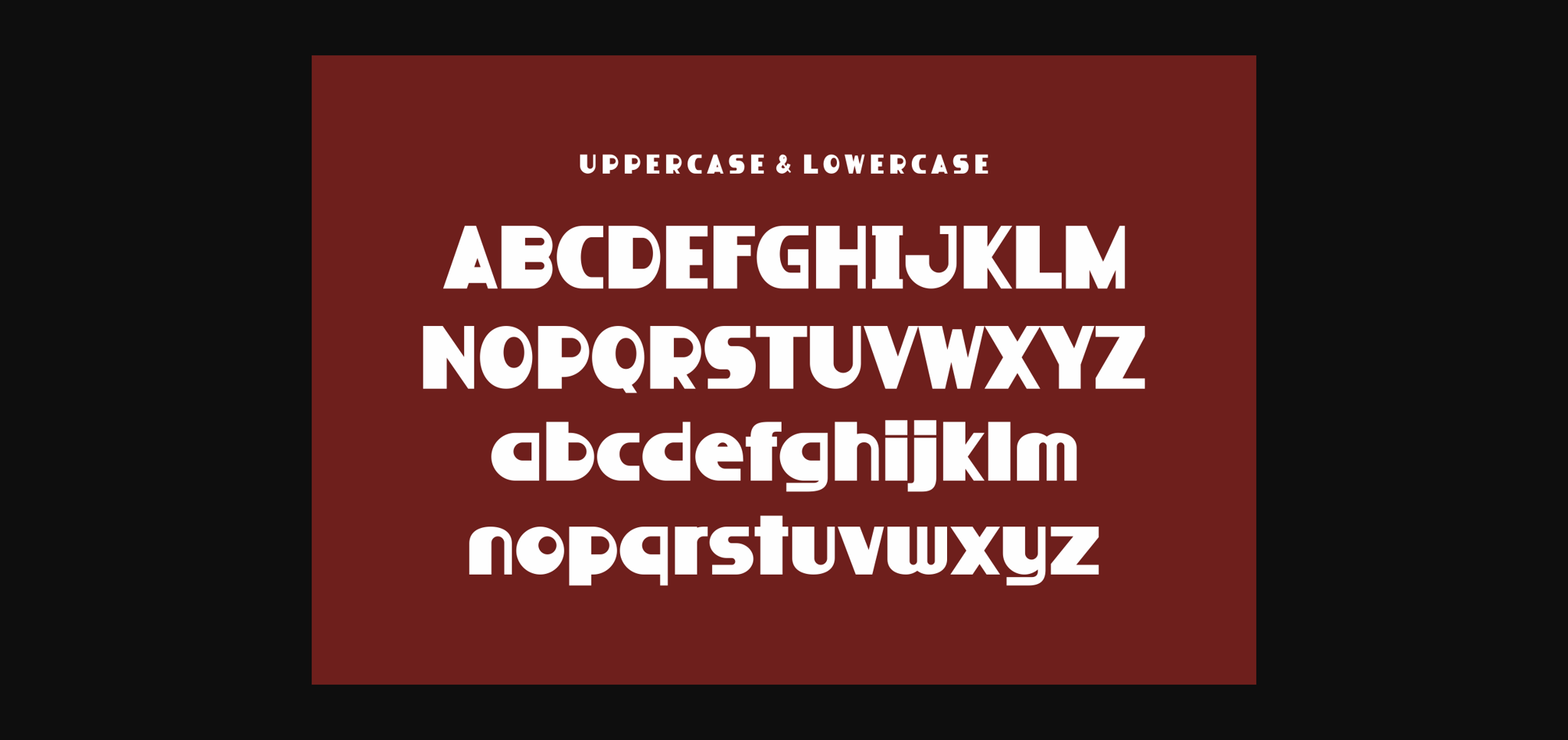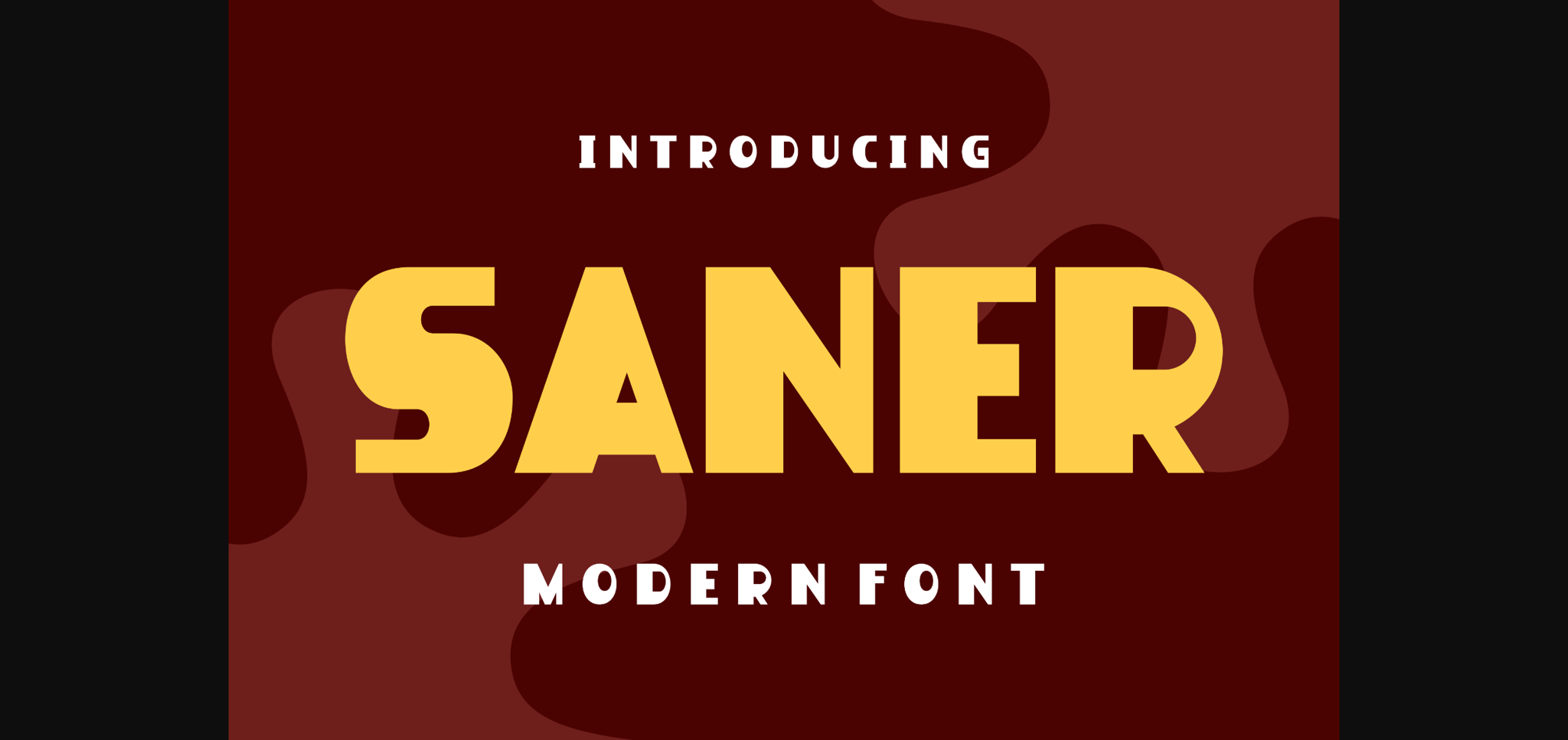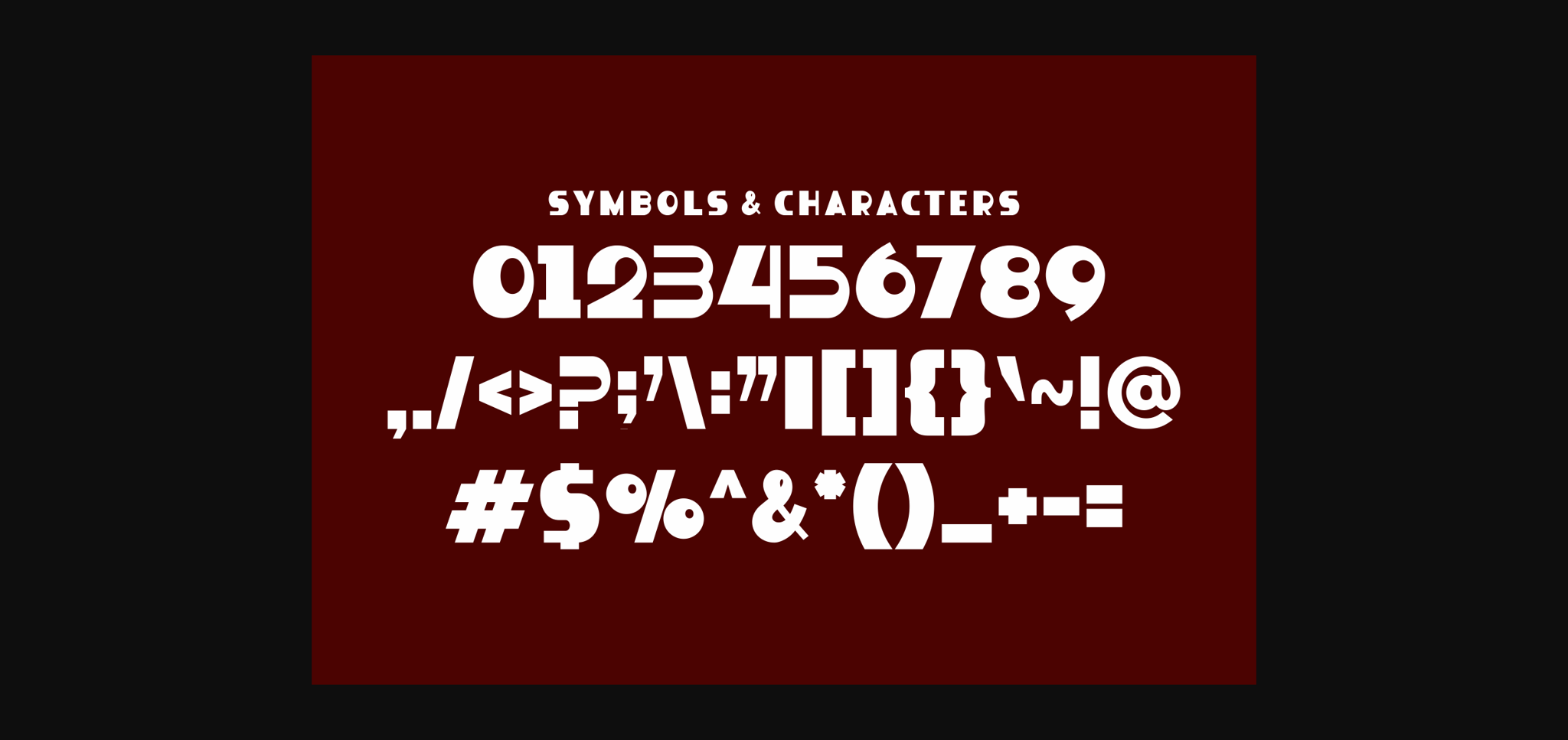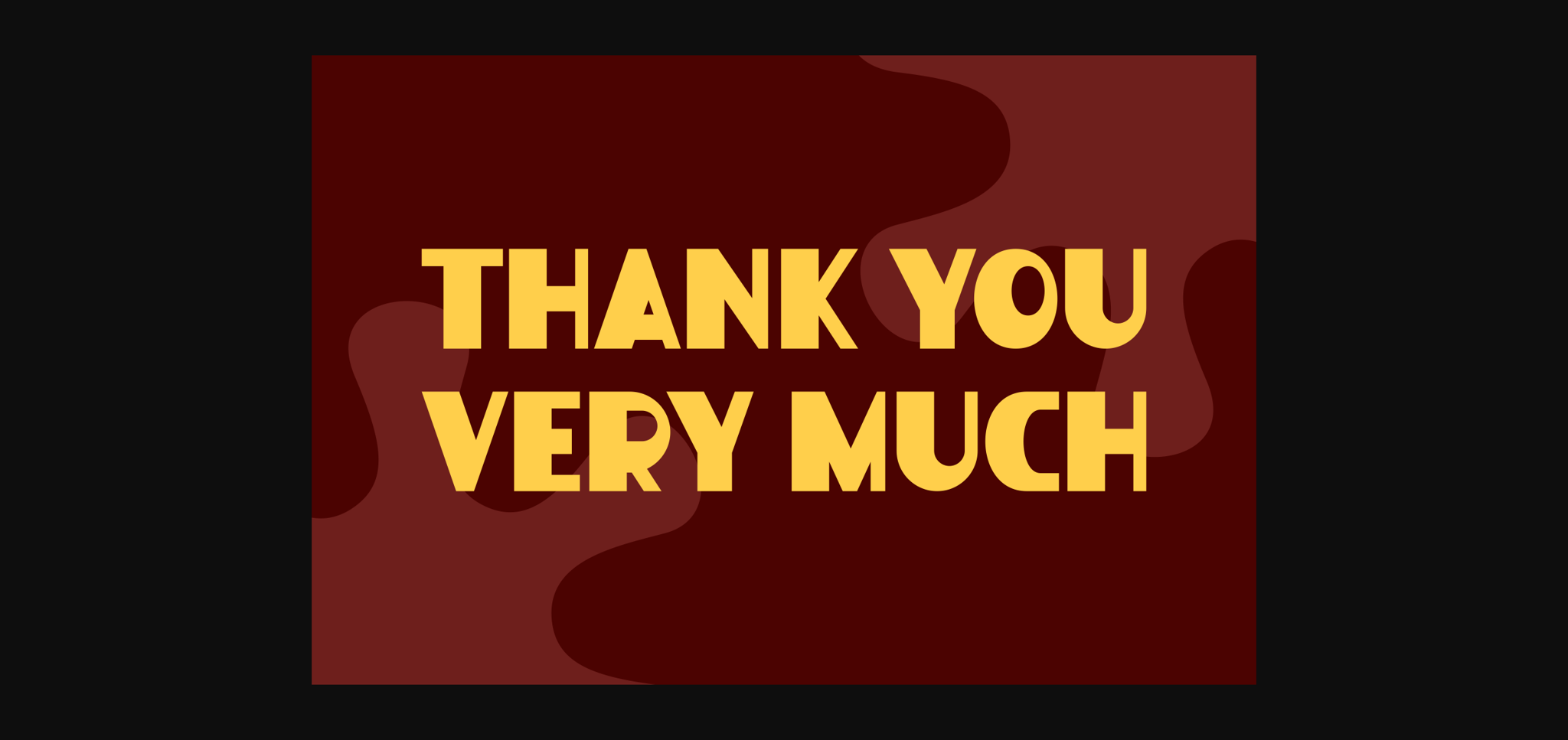
HomeSans Serif FontsSaner Font Sans Serif Fonts Saner Font FacebookTwitterPinterestWhatsApp 1 of 6 ... Saner Font Poster 2... Saner Font Poster 3... Saner Font Poster 4... Saner Font Poster 5... Saner Font Poster 6... About Saner Font Saner is a unique and interesting display font. A little bit quirky, this font looks incredibly adept on a wide variety of contexts! DOWNLOAD NOW 139 0 People also explored Acetylene Script Font Baby Cloud Font Imagination Font You Are My Sun Font Freshe Font Amora Brush Font Rossans Font Blue Sky Font Belive Font Sponge Bath Font Quanifosh Font Decision Making Font TagsSanerSaner Font Previous articleBagun FontNext articlePlaybill Font LEAVE A REPLY Cancel reply Comment: Please enter your comment! Name:* Please enter your name here Email:* You have entered an incorrect email address! Please enter your email address here Website: Save my name, email, and website in this browser for the next time I comment. Unlock Endless Creativity with the FREE September Clipart Huge Bundle (Valued at $700!) Personal Use Free First Be Lucky Personal Use Free Read more Imelda Personal Use Free Read more Propaniac Personal Use Free Read more Propaganda Personal Use Free Read more BLOG To increase your work productivity, choose the most readable fonts. In today's fast-paced work environment, where digital communication and information consumption are integral to our daily routines, the choice of fonts can significantly impact... Where to Buy American Fonts Online in 2024 Top 7 Google Fonts Alternatives for Faster and Privacy-Friendly Web Design (2025) Transform Your Website: Elevate Your Typography with 7 Best Web Font Generators